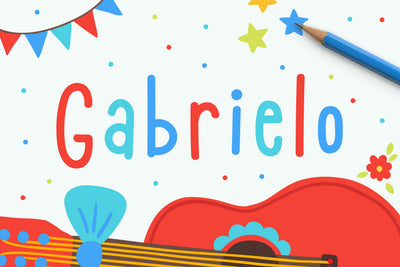
Gabrielo | Slim & Friendly Font
Gabrielo is a fun & friendly typeface with a monoline style. Perfect for any design & craft projects as they're fully PUA-encoded and accessible to everyone across all softwares!